Latin Italic 07: “Characters to be Inclined or Not Inclined”
In the previous article of this series “Inclination of Italic,” the difference in the impression due to inclination degree is explained. In this article, I would like to mention which glyphs are inclined among the character sets of one font.
The horizontally inclined design is typical for italic, but not all characters in the font are inclined. Looking at the glyphs included in the font one by one, there may be some glyphs that keep the design remaining regular.
Which glyph to incline is largely decided by individual designer. Basic glyphs, such as A-z, numbers, etc., are mostly inclined, but handling of symbols varies depending on the typeface. There is an impression that mathematical symbols (+=<>) that appear in the text, and the glyphs infrequently used for typesetting in italic are selected not to be inclined in many cases.
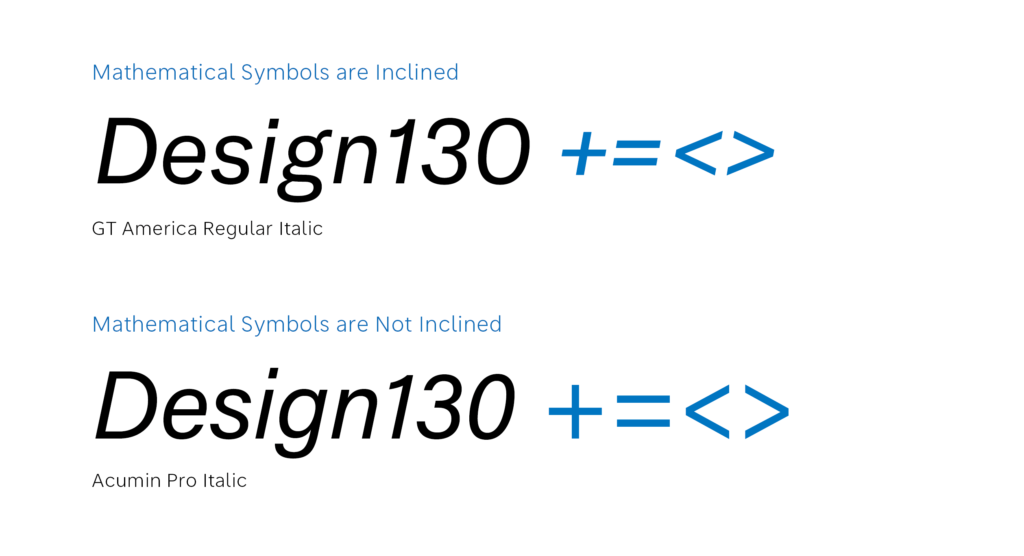
While some companies establish company rules and arrange the glyphs to be inclined in all fonts to be released, other companies correspond flexibly depending on the typeface usage. It may be interesting to input various characters in previews of font sales websites to see differences by typeface.